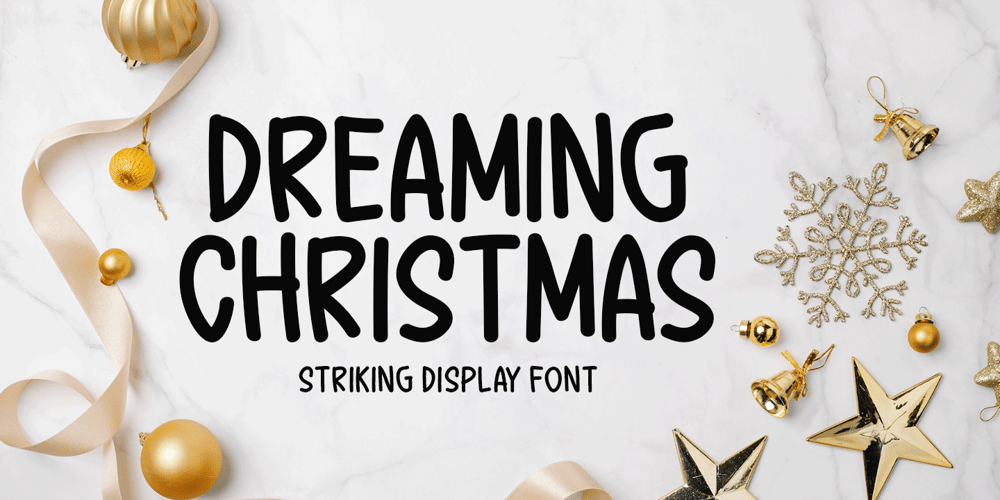
Dreaming Christmas Font Family was designed by Md Shohail Bhuian and published by Seemly Fonts. Dreaming Christmas contains 1 styles and family package options. Dreaming Christmas is a striking display font. It can easily be matched to an incredibly large set of projects, so add it to your creative ideas and notice how it makes them stand out!